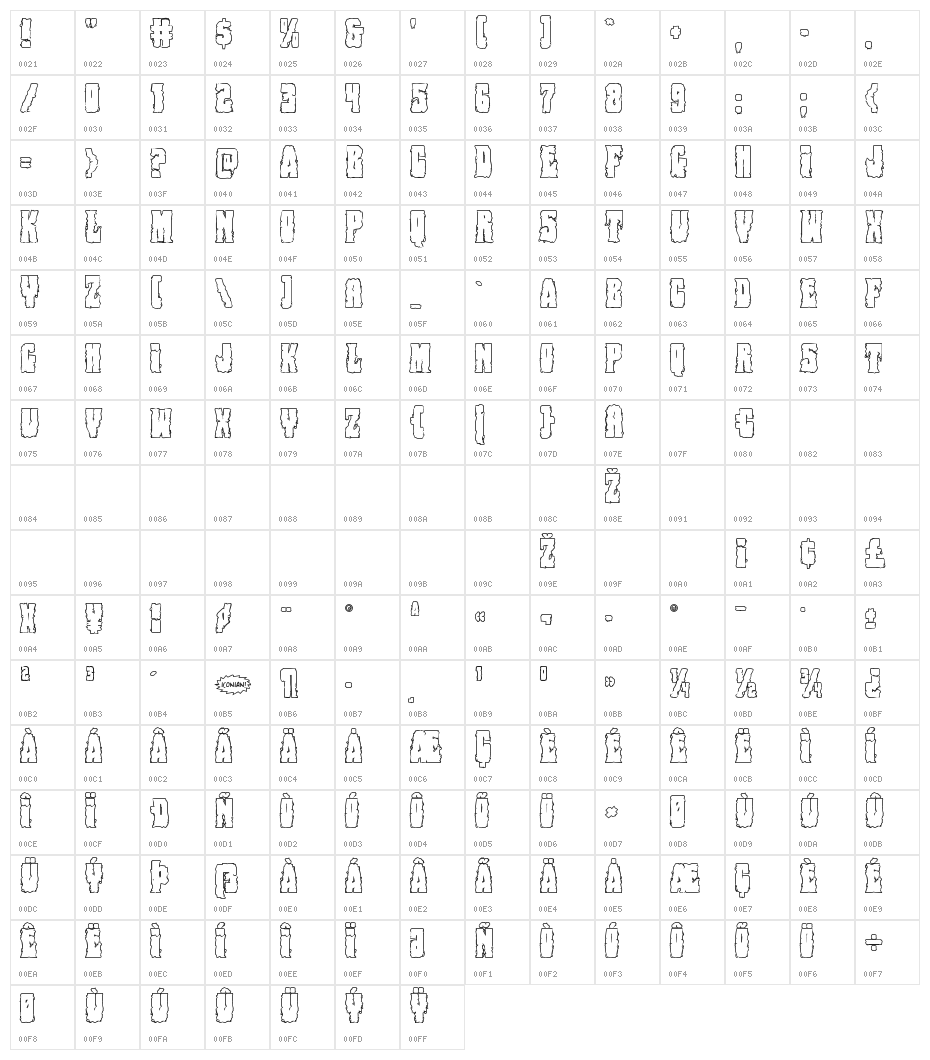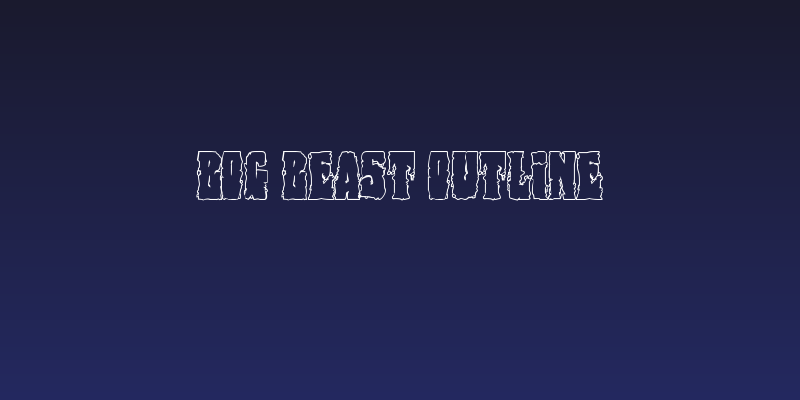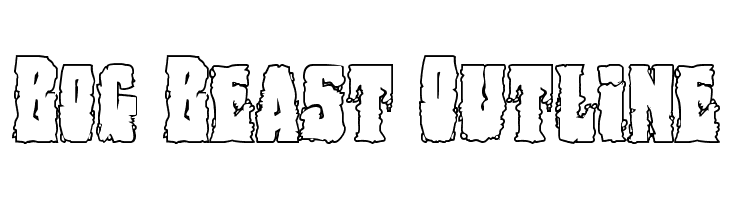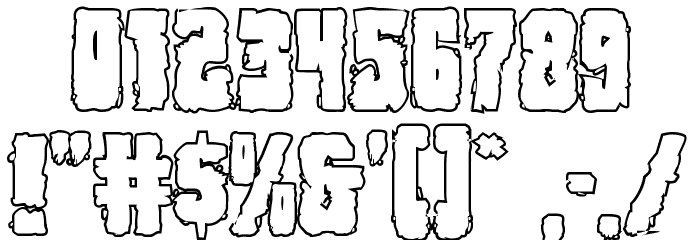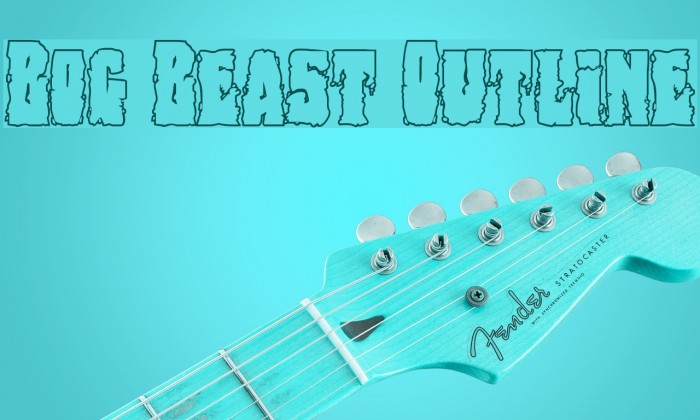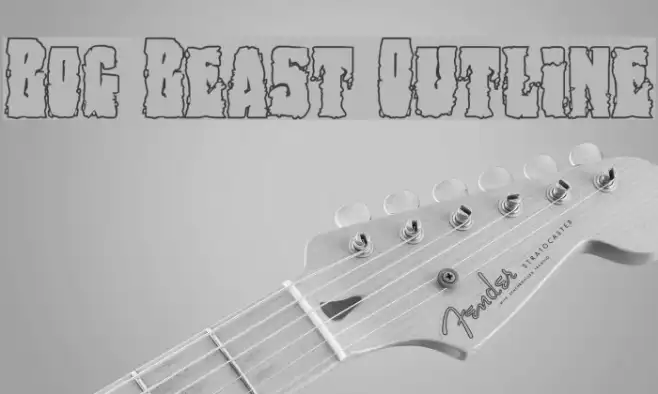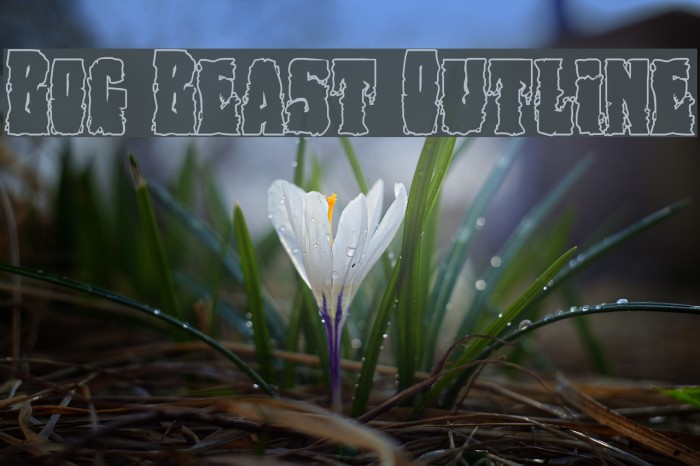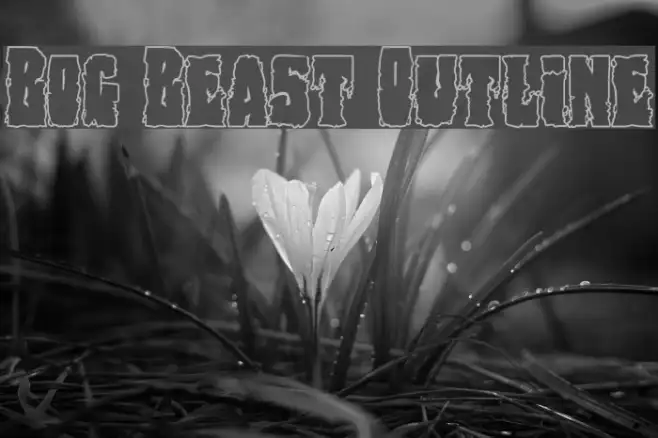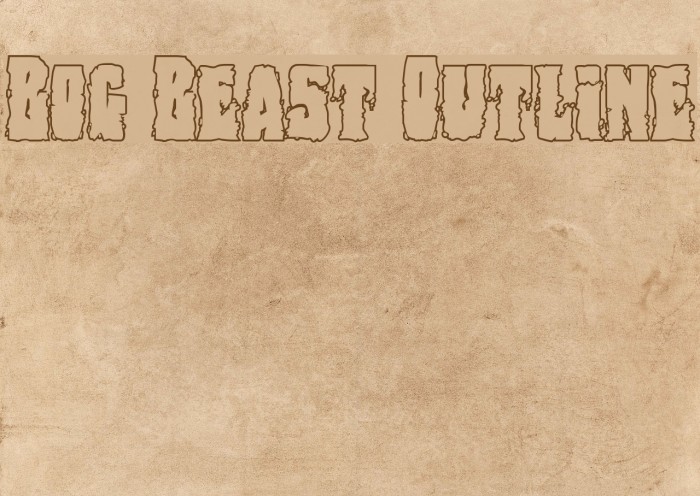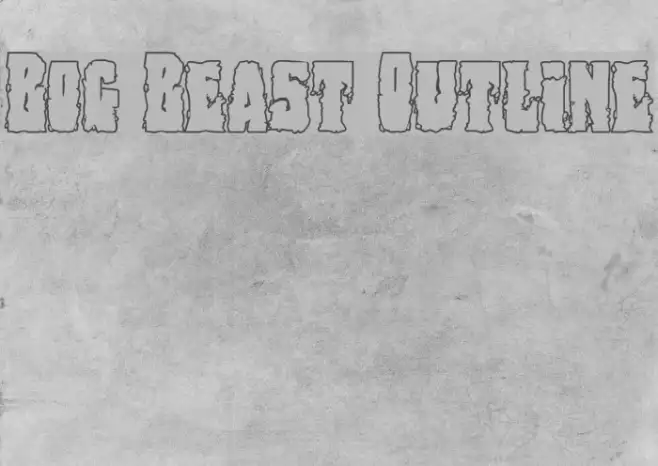
Bog Beast Outline Font
Bog Beast Outline Description
This font features a bold, rugged outline style that mimics the appearance of cracked or eroded surfaces. The characters are uppercase and have a distressed, organic look, reminiscent of natural textures like bark or stone. The font's unique design gives it a dynamic and eye-catching appearance, making it suitable for projects that require a bold and adventurous aesthetic. The irregular edges and uneven lines contribute to its wild and untamed feel, perfect for themes related to nature, horror, or fantasy.
| Proposed Projects | Ideal for horror movie posters, adventure-themed graphics, Halloween invitations, or fantasy book covers. |